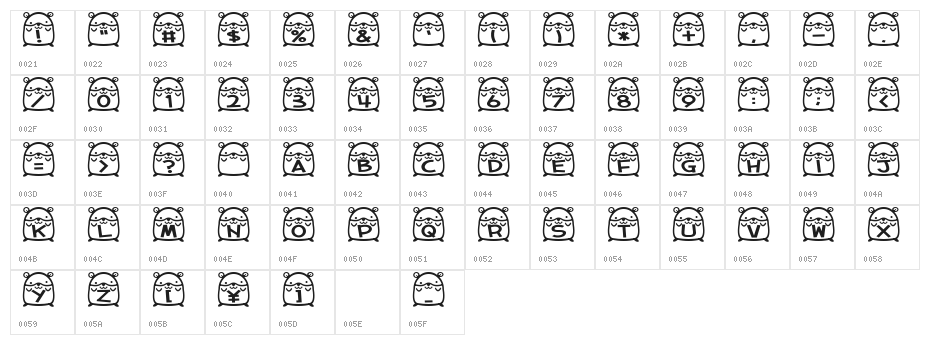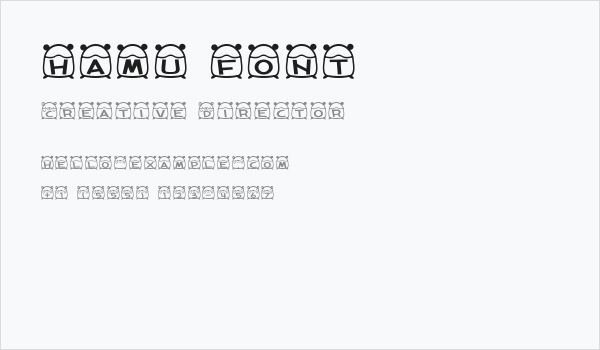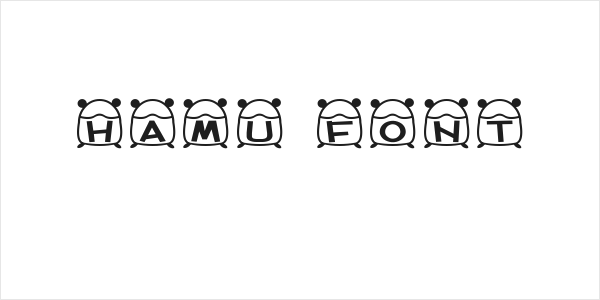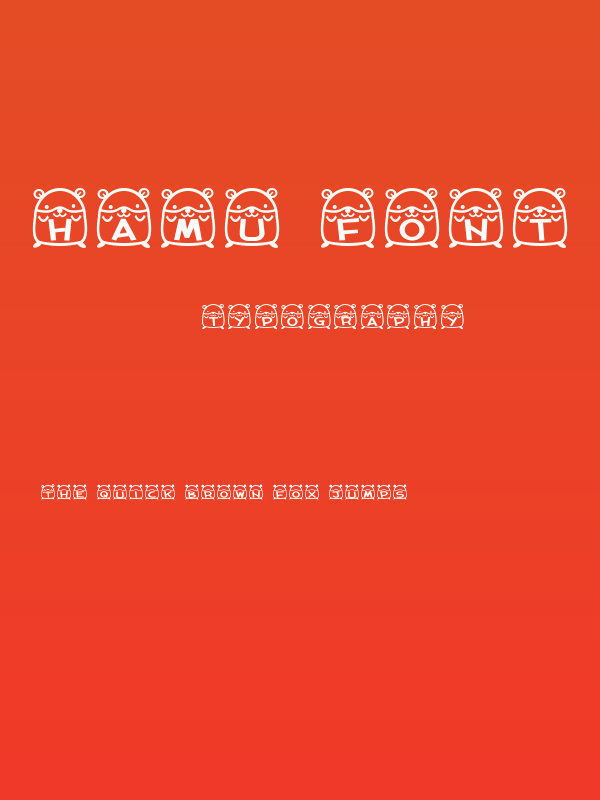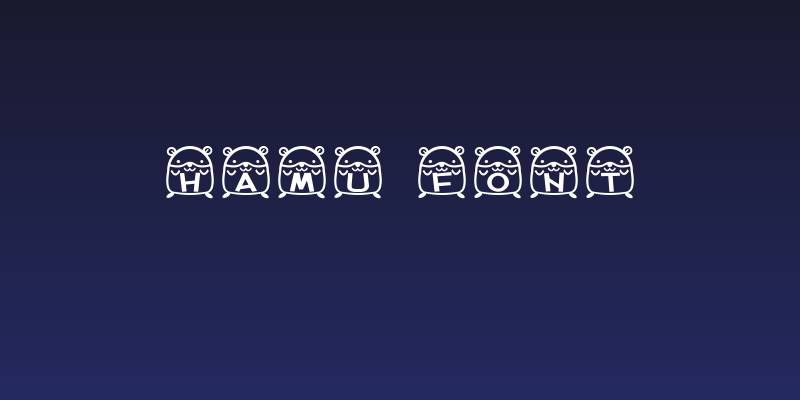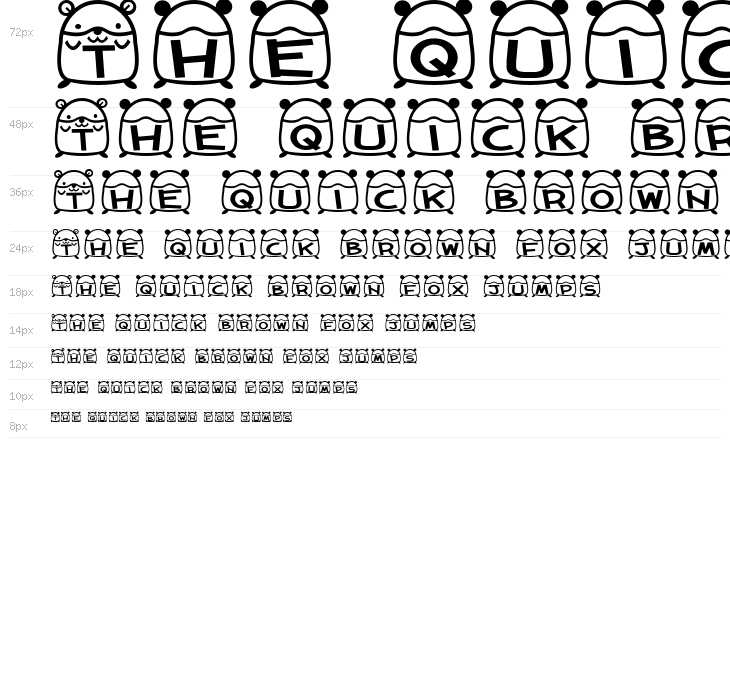
hamu font Font
hamu font Description
This playful and whimsical font features each character enclosed within a cute, cartoonish hamster shape. The letters and numbers are bold and clear, making them easily readable despite the decorative elements. The font has a unique charm, perfect for projects that require a fun and lighthearted touch. The consistent use of the hamster motif across all characters adds a cohesive and distinctive style, making it stand out in any design. The font is ideal for children's materials, playful branding, or any creative project that aims to evoke joy and friendliness.
| Use Case | Logos, Headlines, Children's materials |
| Proposed Projects | Children's books, playful branding, greeting cards, educational materials, and party invitations. |